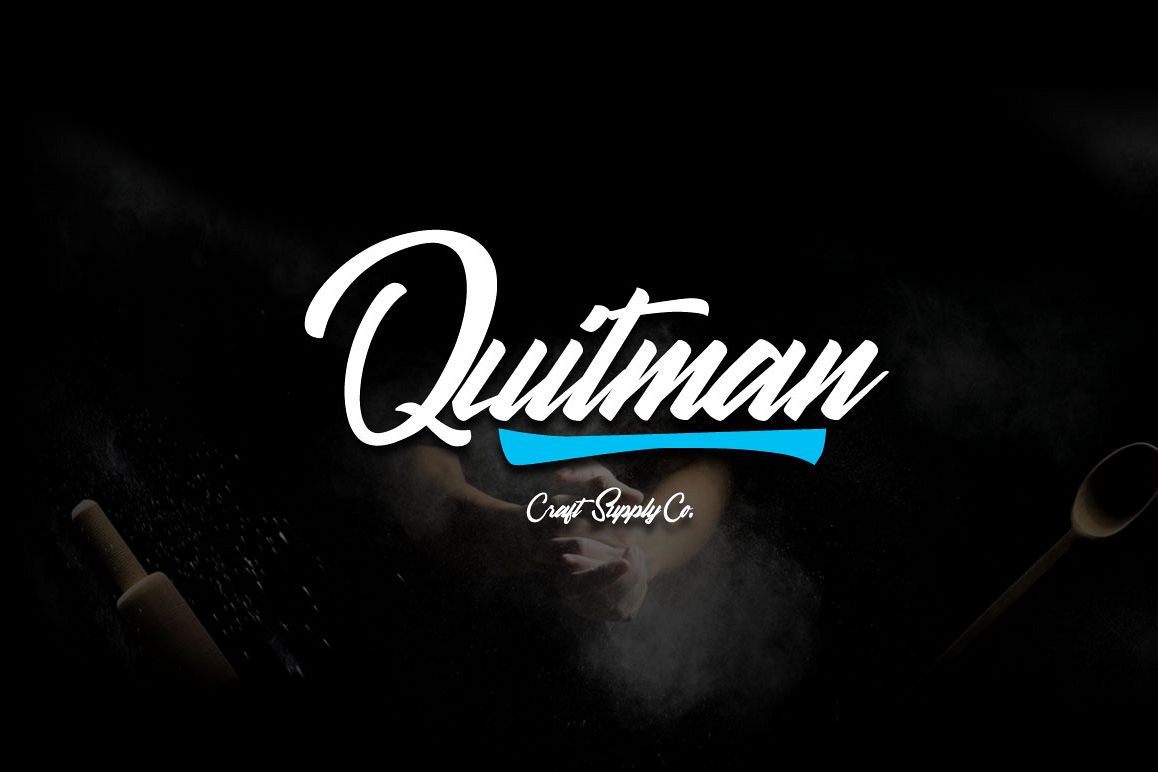
Quitman
Introducing New Font : Quitman
Quitman is suitable for Logo, greeting cards, quotes, posters, branding, name card, stationary, design title, blog header, art quote, typography art, modern envelope lettering or book design.
Quitman also suitable for happening style like handdrawn design or watercolor design theme, craft design, any DIY project, book title, wedding font, pop vintage design, or any purpose to make our art/design project look pretty and trendy.